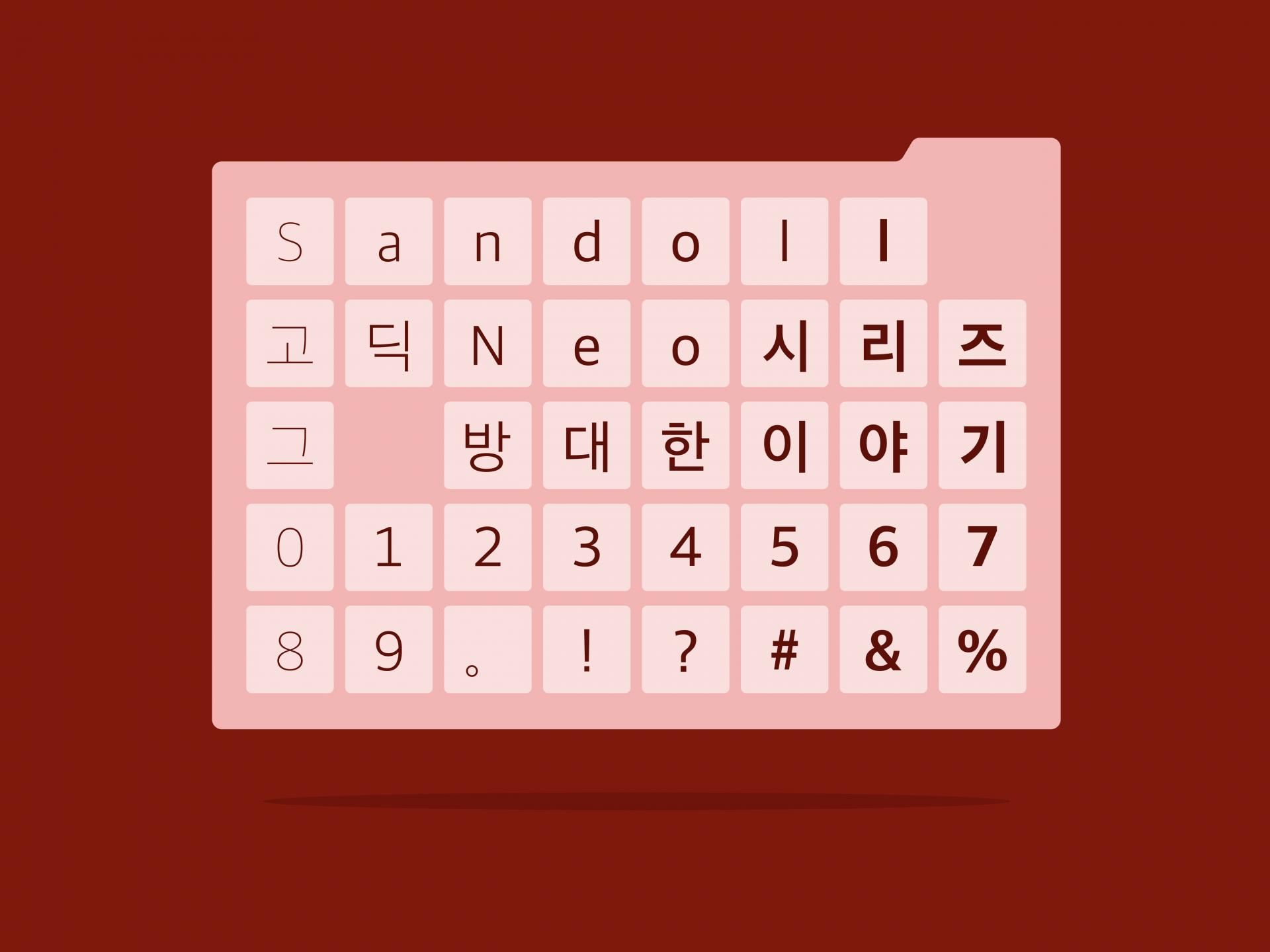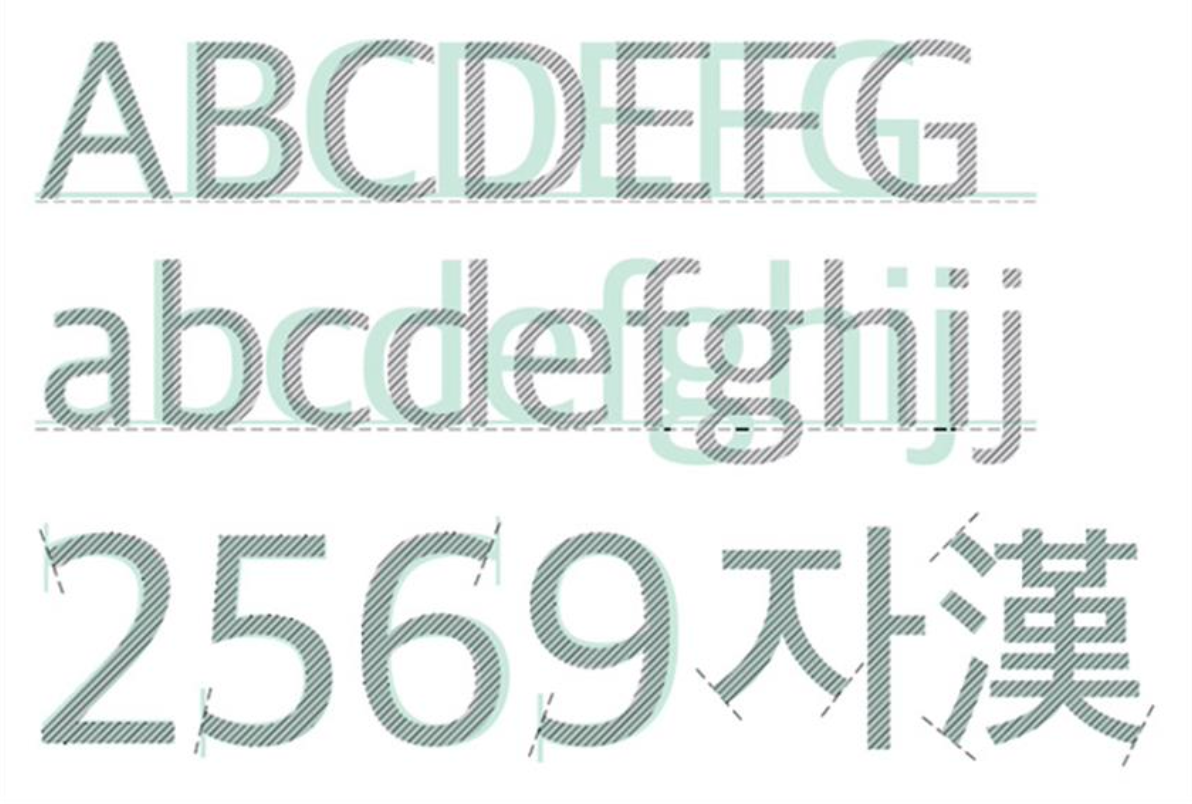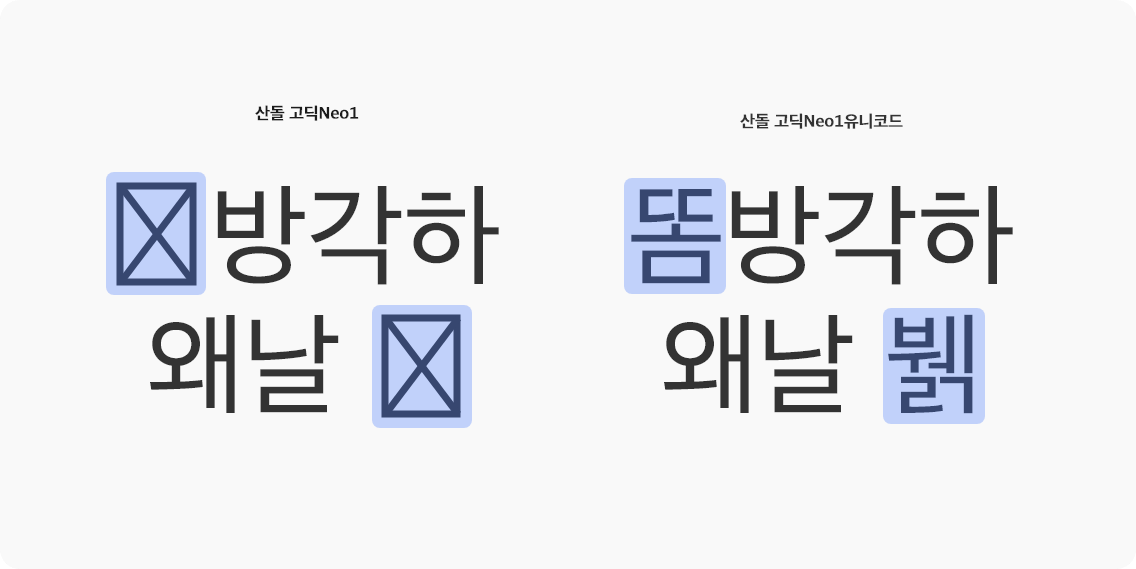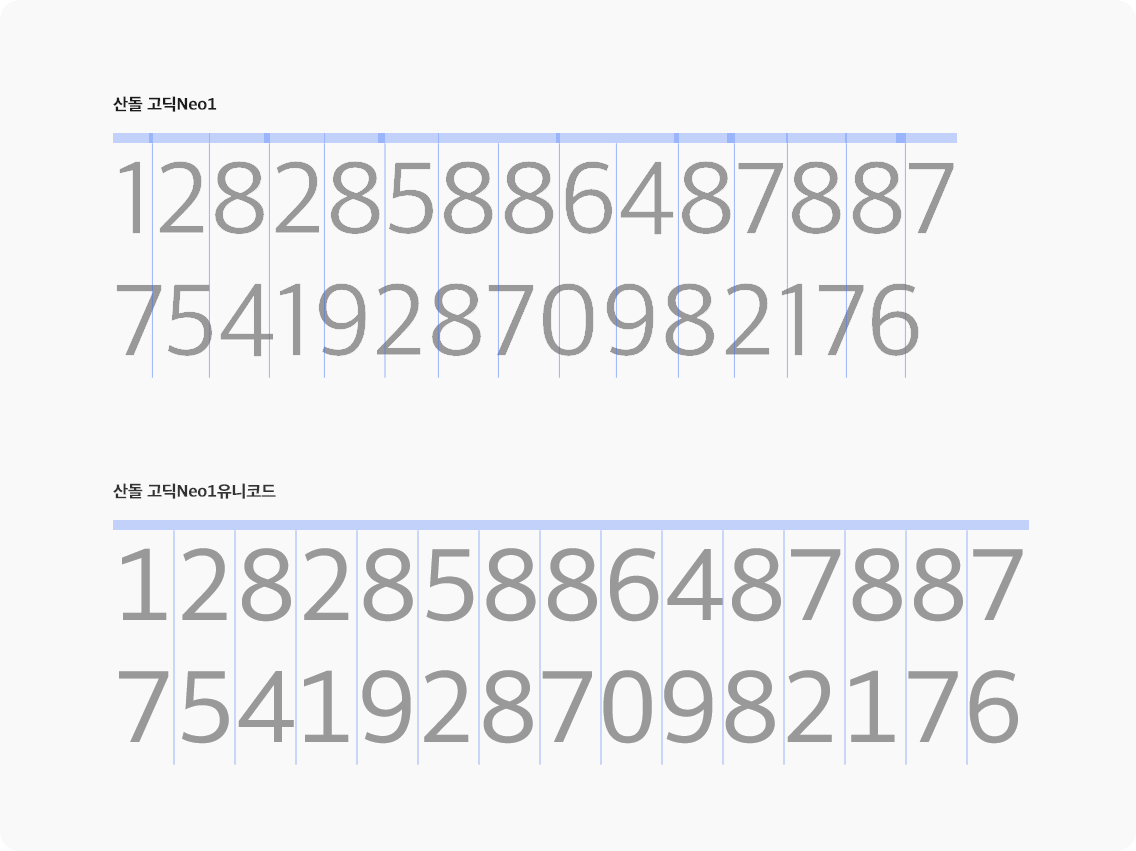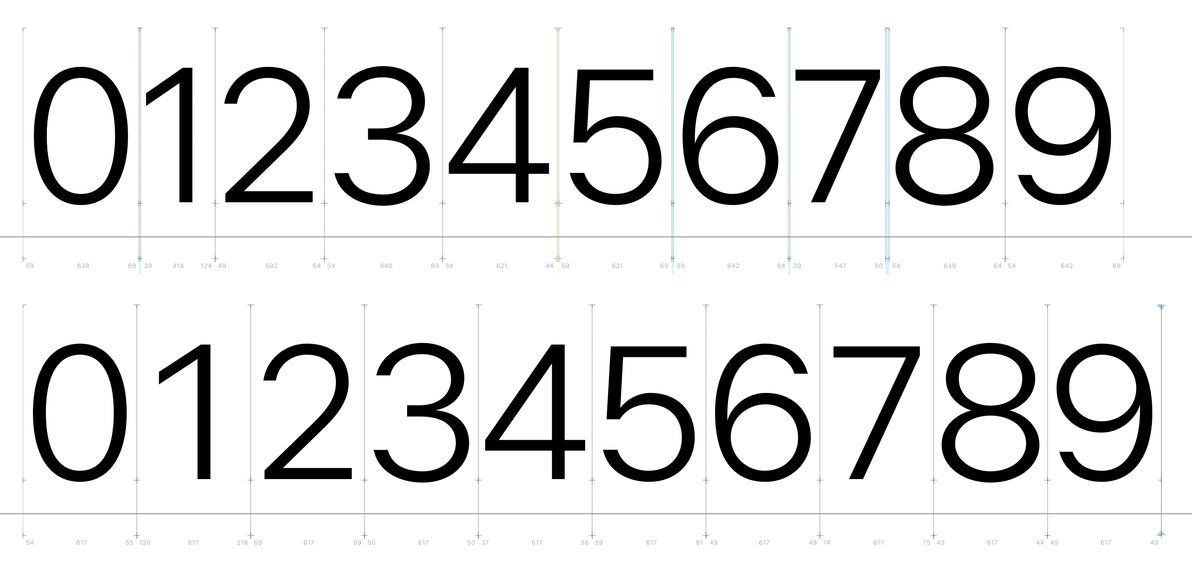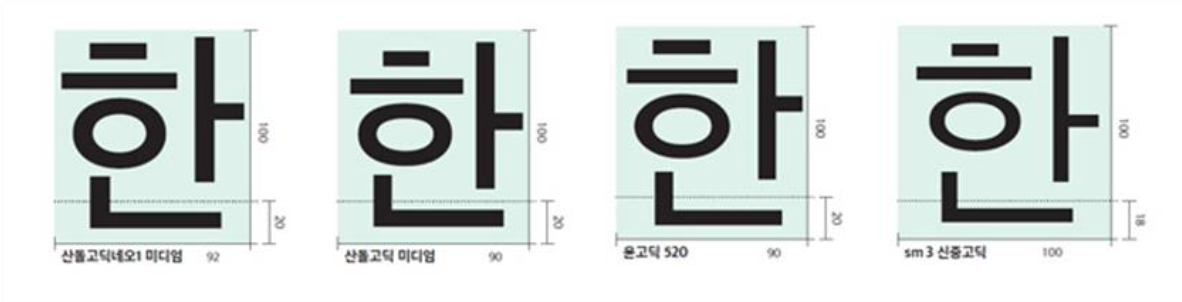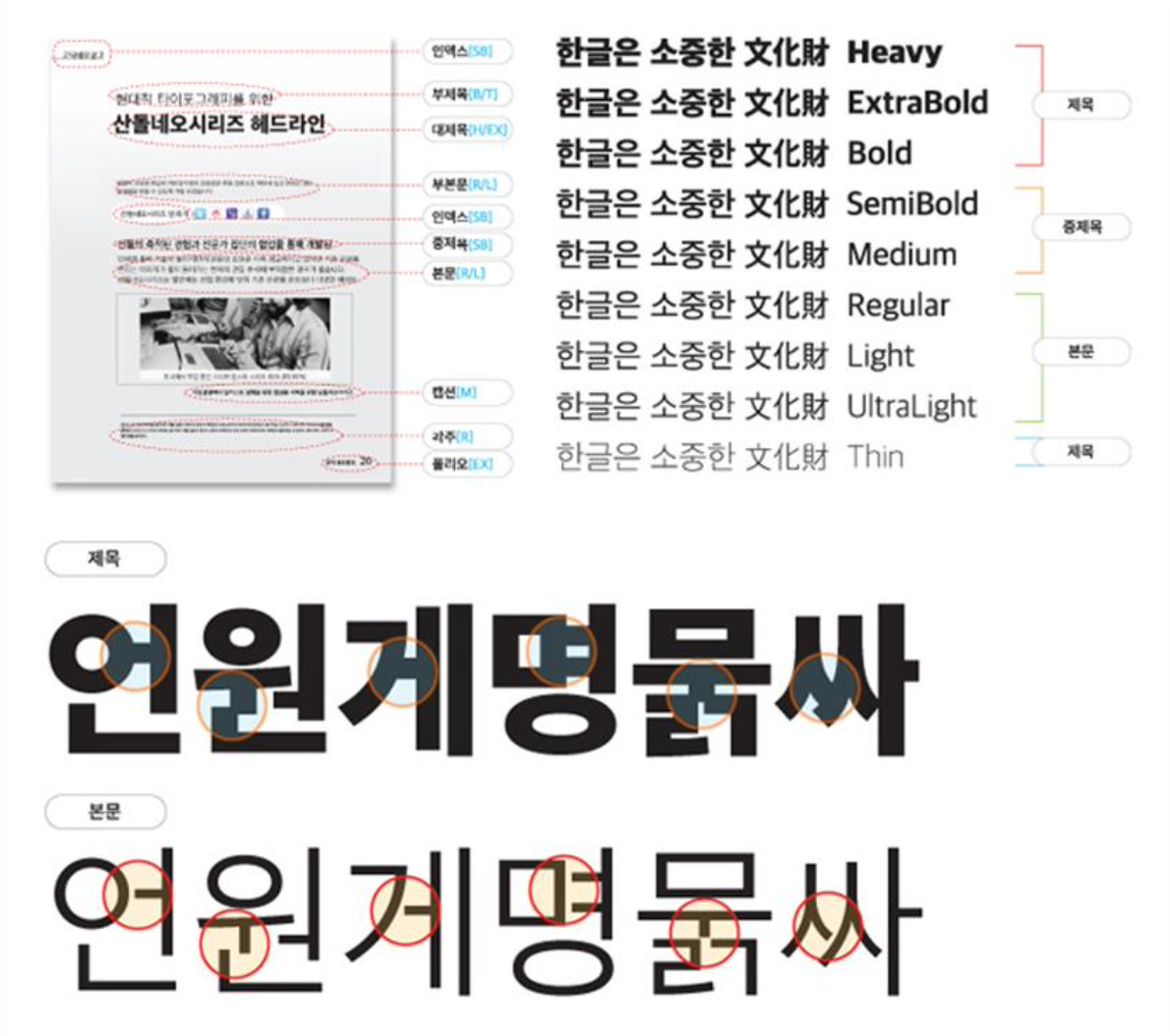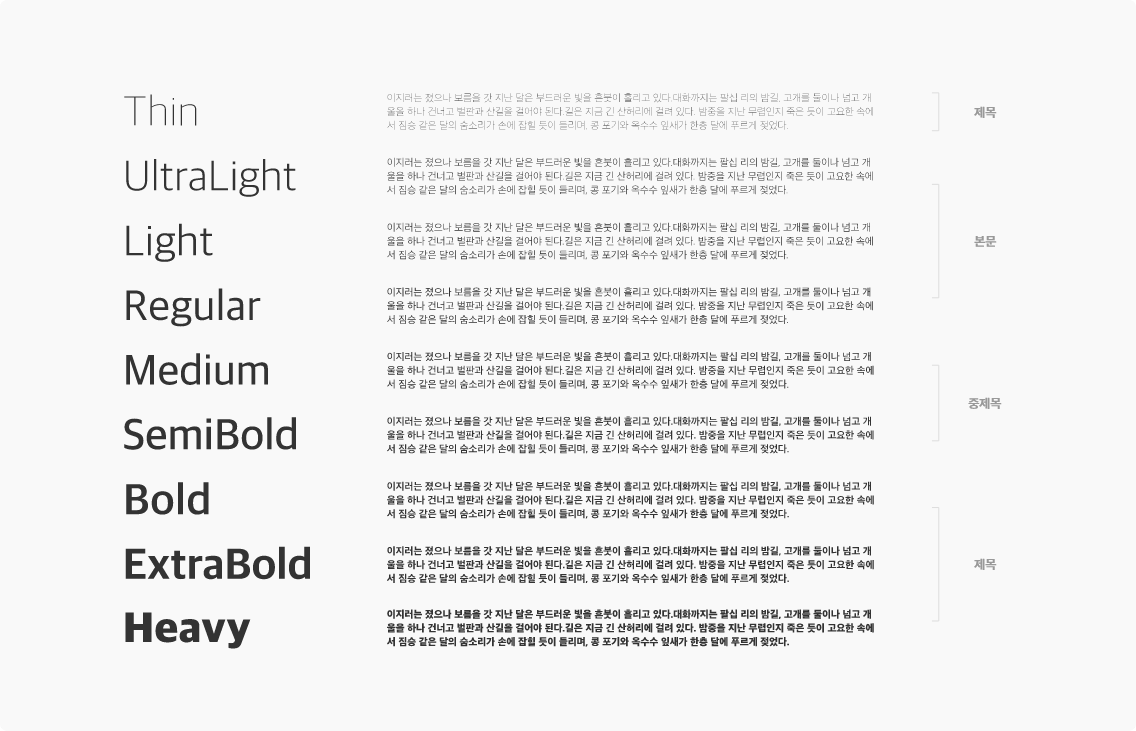
Sandoll’s steady seller, the 『Sandoll Gothic Neo Series』, extends beyond 「Sandoll Gothic Neo 1, 2, 3」 and 「Sandoll Gothic Neo Unicode 1, 2, 3」 to include 「Sandoll Gothic Neo Condensed」 and 「Sandoll Gothic Neo Extended」, forming a font series with a large family of 7 to 9 styles. So familiar that one might forget it is even there, it can also be said to be a font that maintains the closest relationship with users as a typeface face with an immense presence.
The 『Sandoll Gothic Neo』 series can be summarized by four key characteristics: “a design created with user participation,” “the first Hangul font centered on Hangul while harmonizing with other scripts,” “an expanded range of choices through diverse families,” and “ease of use through design optimized for digital environments.”
So, shall we now take a closer look at the story behind the 『Sandoll Gothic Neo』 series, with such remarkable specifications?
『Sandoll Gothic Neo』 series
Developing a new text font had long been one of Sandoll’s aspirations. Fonts can broadly be divided into display fonts and text fonts, and a large proportion of newly released fonts are display fonts. Text fonts are difficult to produce and require substantial manpower, time, and cost. For this reason, there are not many font foundries that undertake the development of text fonts while bearing such resources.
At the time, Sandoll had been exclusively responsible for developing Samsung’s proprietary fonts for several years. In addition, as it also proceeded with proprietary font development for JoongAng Ilbo and Chosun Ilbo, it was difficult to focus on creating text fonts for general users. Although the proprietary fonts for JoongAng Ilbo and Chosun Ilbo were designed as text fonts since they were used in newspapers, their licenses were limited to the companies. It was at this point that the 『Gothic Neo』 series was planned. Reaffirming its sense of responsibility as Korea’s representative font foundry, Sandoll consolidated the text-font production know-how it had accumulated over the years to present a font suited to the new digital environment.
A balance between sensibility and neutrality
Sans-serif fonts are neutral. This makes them easy to use in a wide variety of ways. On the other hand, because they pursue simplicity and modernity, they can easily miss emotional qualities. The reason 「Helvetica」—the default font of the Apple Macintosh and also used in the New York subway—was able to gain such widespread global use is that it was designed as a neutral font, free from bias toward any one direction.
The 『Gothic Neo』 series sought to embrace this aspect as well. However, Hangul, composed largely of straight strokes, can become reduced to purely geometric forms of verticals and horizontals if it is overly simplified. In addition, 「Helvetica」 has the limitation of having been designed more than 50 years ago. Furthermore, in an increasingly digital world, the user demand for analog-era sensibility could not be ignored.
With this direction in mind, the 『Gothic Neo』 series was designed to preserve the beauty of curves by maintaining Hangul’s inherent angles as much as possible, while incorporating emotional elements to compensate for the weaknesses that sans-serif fonts can have.
Hangul-centered, user-centered
The most prominent characteristic of the 『Gothic Neo』 series is that it places “Hangul” at its center. One might wonder, “Isn’t it natural for a Hangul font to be centered on Hangul?” Yet it is difficult to find cases like the 『Gothic Neo』 series, where Hangul design is placed at the highest priority, Latin alphabets are selected and refined to match that concept, and Hanja are directly designed. In most cases, fonts proceed by selecting Latin alphabets and Hanja that best fit the Hangul design and fitting them in accordingly.
For the Latin component of the 『Gothic Neo』 series, candidate fonts whose structures and skeletons best matched Hangul were selected from existing Latin alphabets and subjected to careful testing. As a result, 「Guardian Sans Headline」 was chosen. The selection criteria were as follows:
– It should be a contemporary, well-designed sans-serif font
– It should have a narrow character width
– It should have a large x-height (since Hangul characters are placed within two baseline standards like Latin capital letters, a large x-height is necessary to harmonize with both uppercase and lowercase)
– It should inherit the geometric feel of Univers while possessing the freshness of a digital font
Of course, without joint development, it is difficult to find a font that achieves perfect harmony. Although the selected 「Guardian Sans Headline」 was harmonious in overall tone, there were details—such as stroke endings—that did not align with the specific requirements of Hangul composition. Accordingly, licensing issues were formally resolved with the original designer, and the shapes were refined to suit the Hangul design concept. All modifications were finalized after final review by the original designer, Christian Schwartz. This revised version was given the name 「Sandoll Guardian Sans」.
Comparison of specification changes
Numerals changed from variable width to fixed width
We hope that the 『Gothic Neo』 series—completed through an exploratory spirit grounded in Sandoll’s accumulated know-how and unprecedented challenges—will broaden designers’ range of choice.